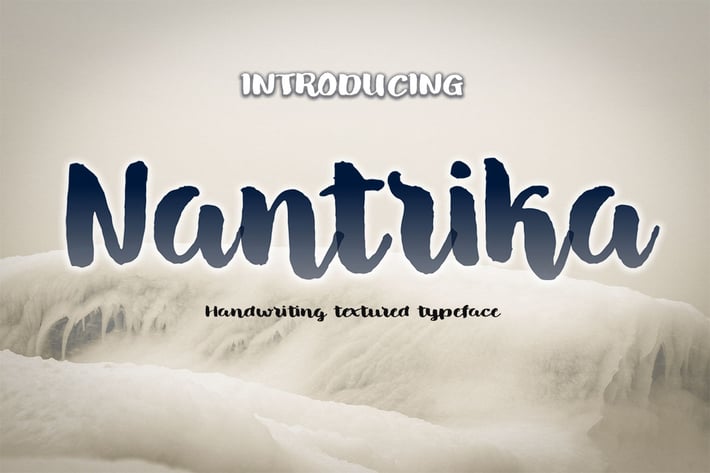
Nantrika - Handwritten Font
Introducing Nantrika, a simple, unique, and textured handwritten font.
So perfect for you who needs a typeface for logo designs, magazine, social media, brochure, and many more.
+ Uppercase
+ Lowercase
+ Numerals
+ Punctuation